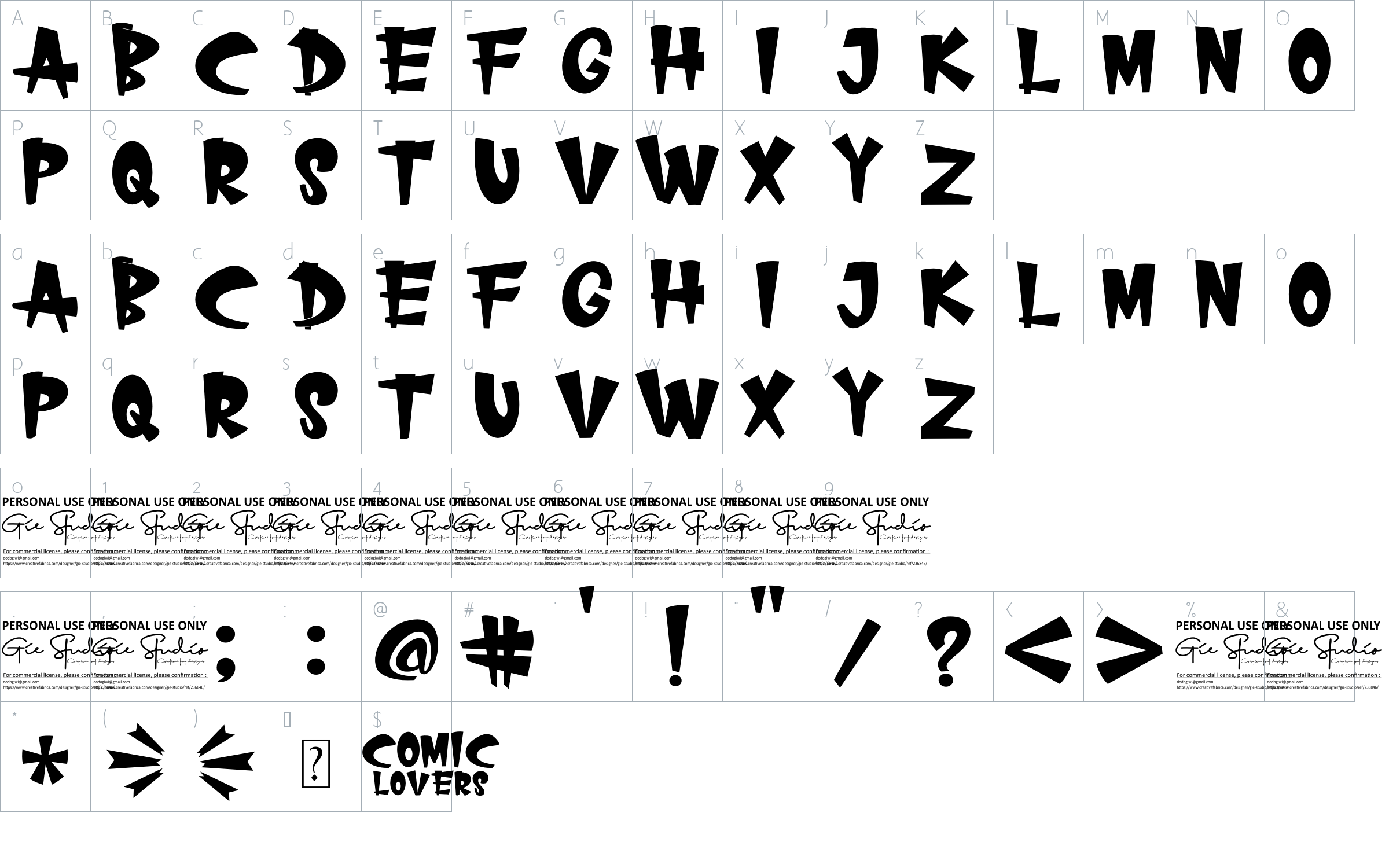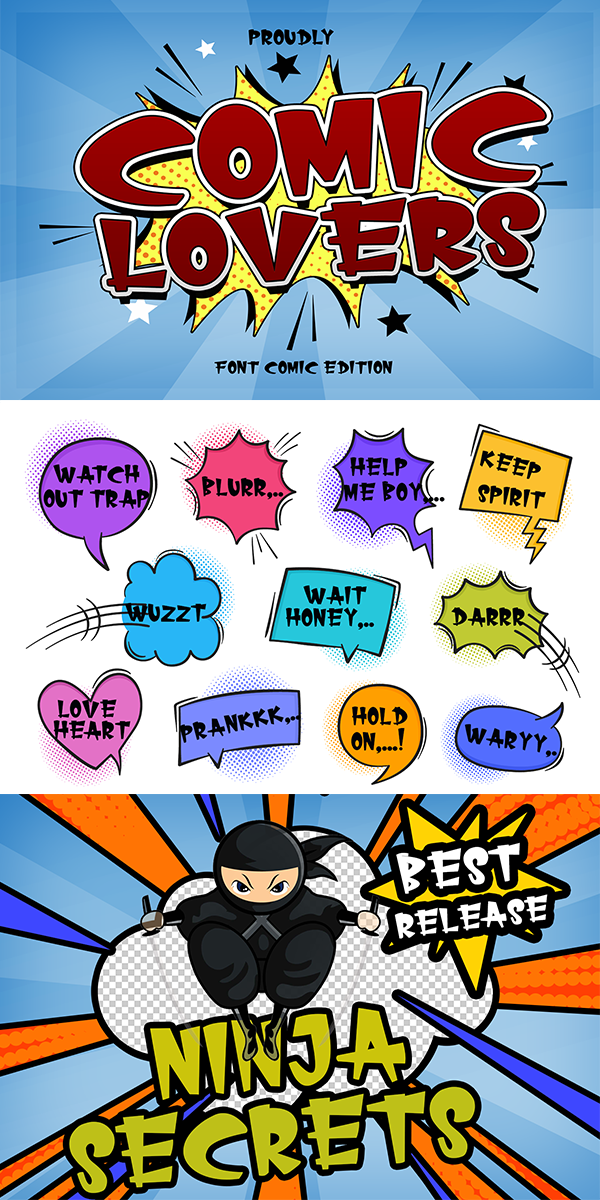
COMIC LOVERS Font
Designed by Gie Studio
About COMIC LOVERS
Comic Lovers is a cute and quirky color font. It will add an incredibly joyful touch to your designs. Add this beautiful color font to each of your creative ideas and notice how it makes them stand out!